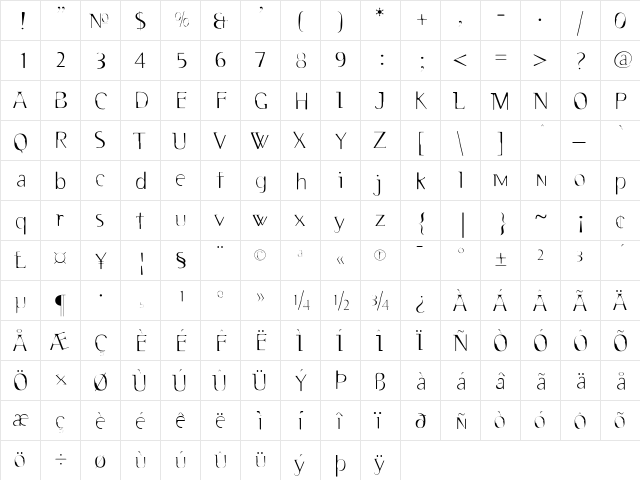
Deux Light
Design Context for Deux Typeface
Deux offers clean, dependable letterforms without strong stylistic allegiance, making it a practical choice for designers who need flexibility. Its slender proportions lend an understated elegance to any composition.
Pro Tip: Use Deux in both headline and body roles to test its range before committing to a single application.